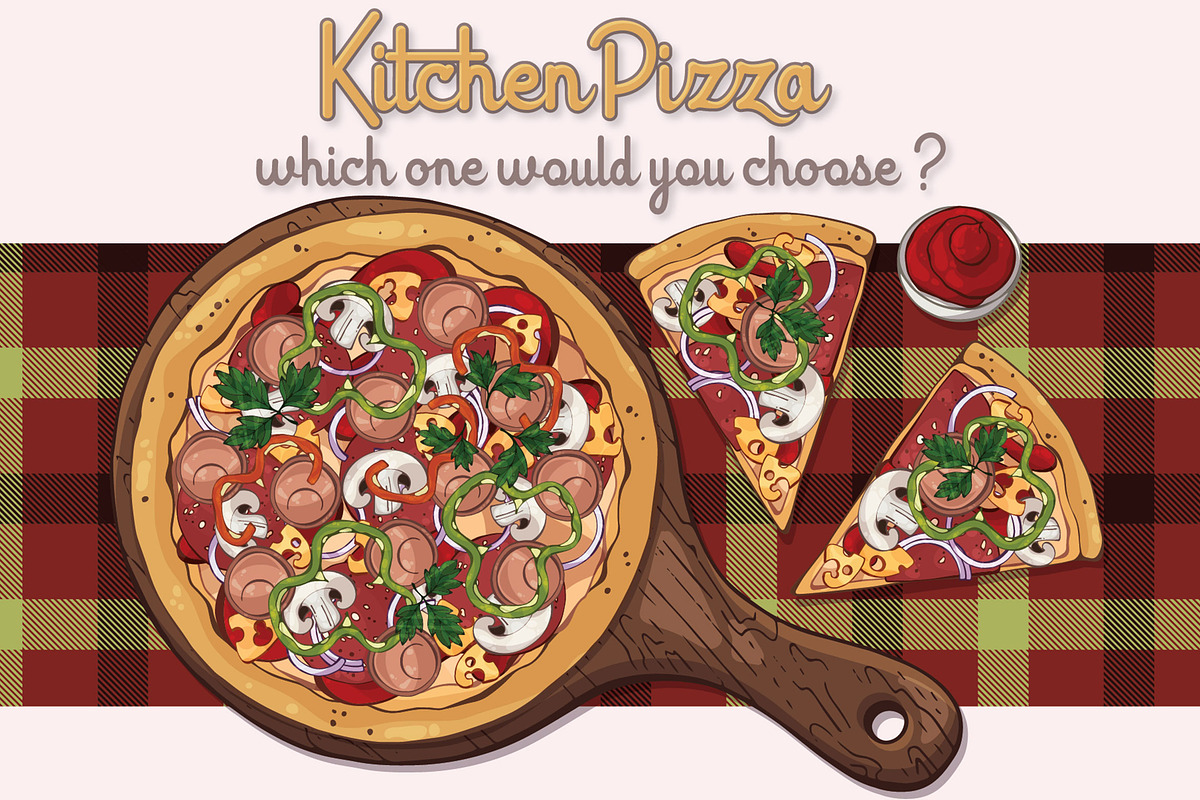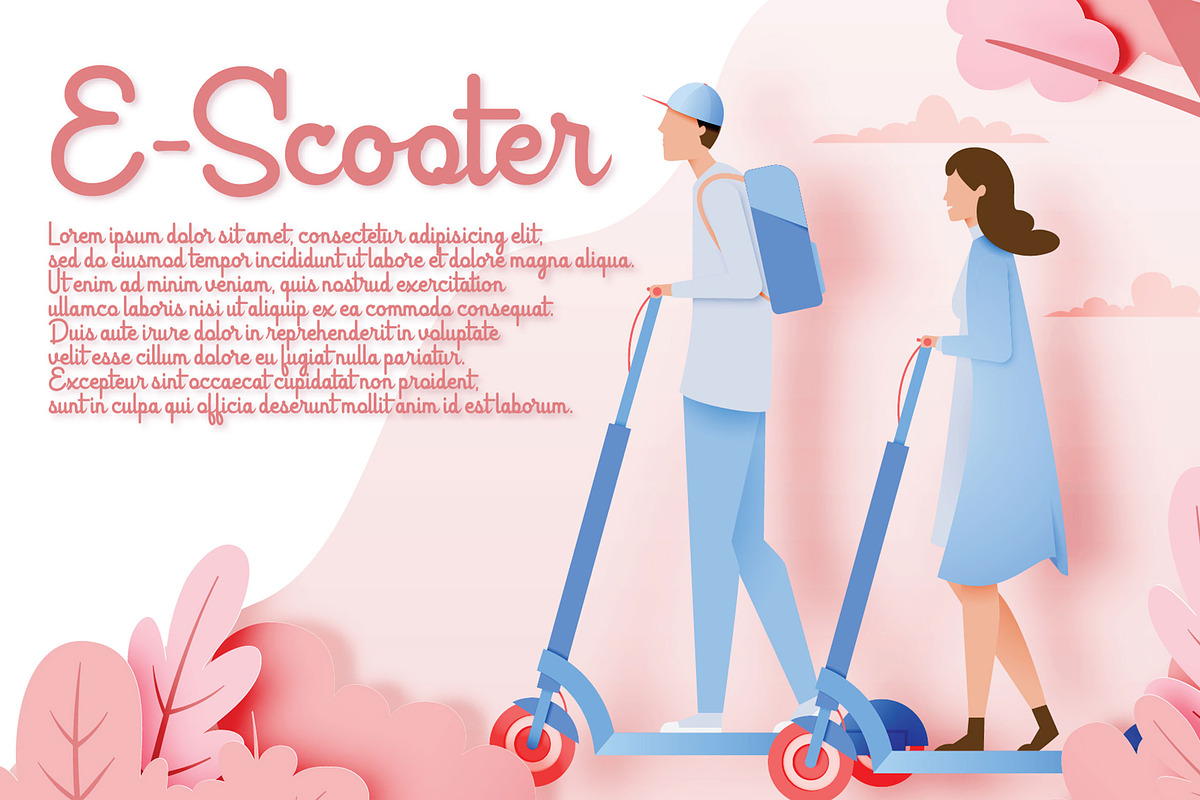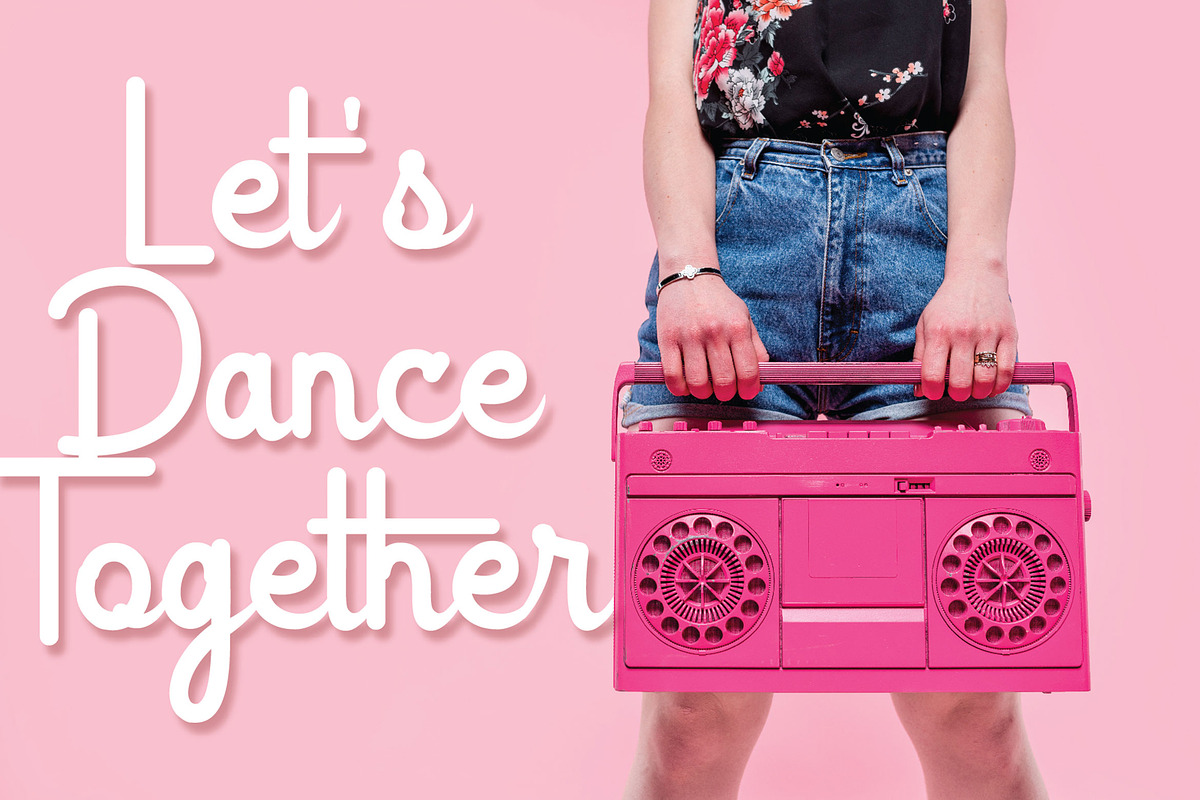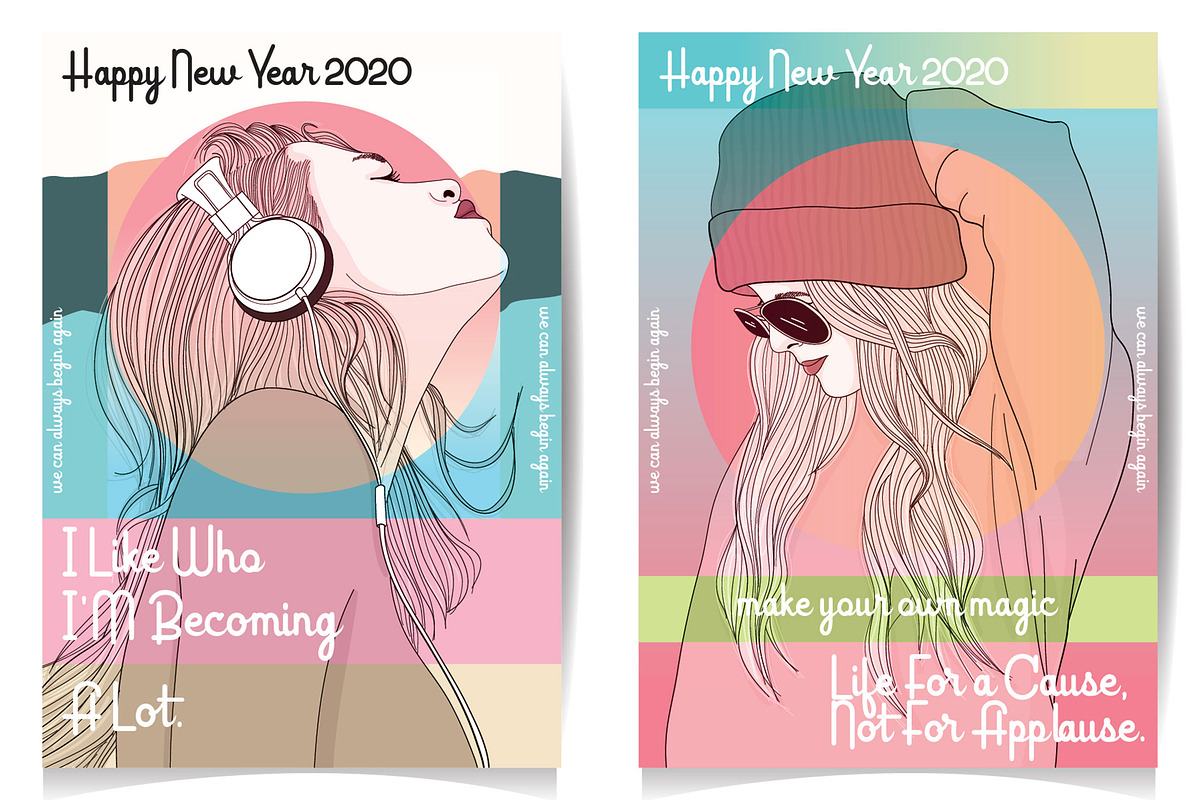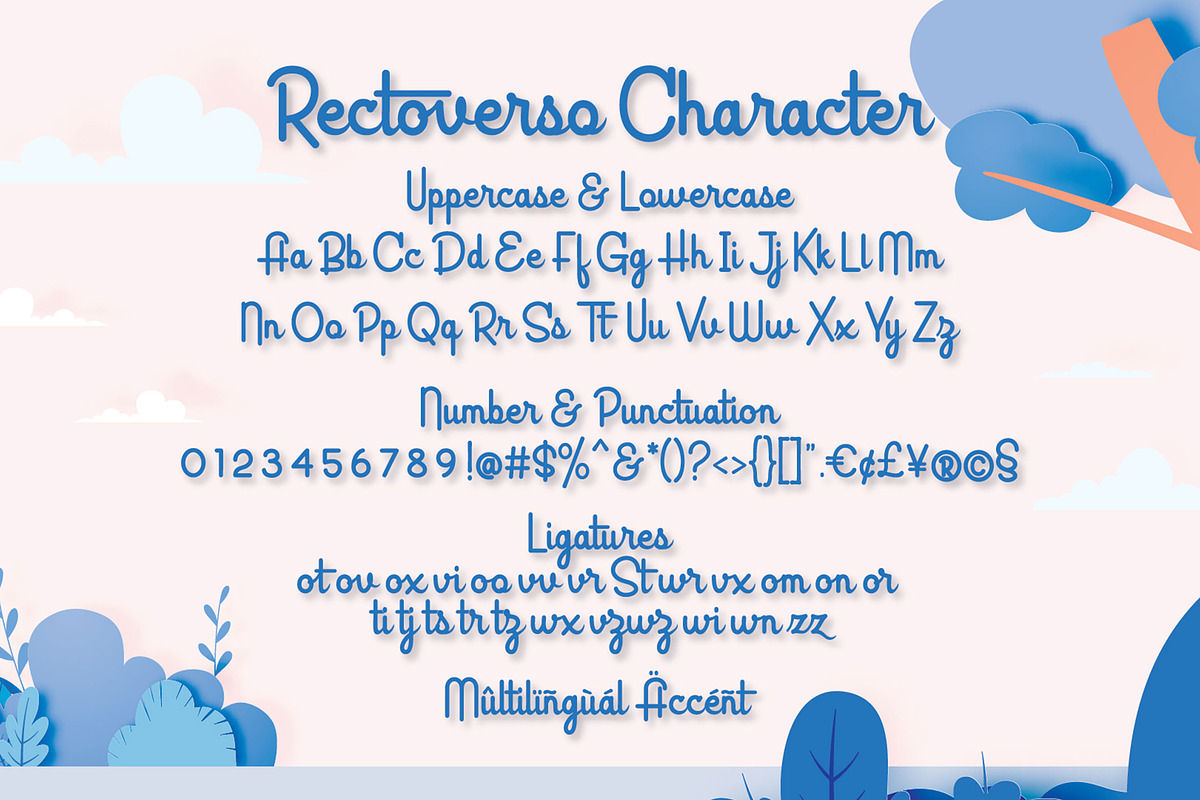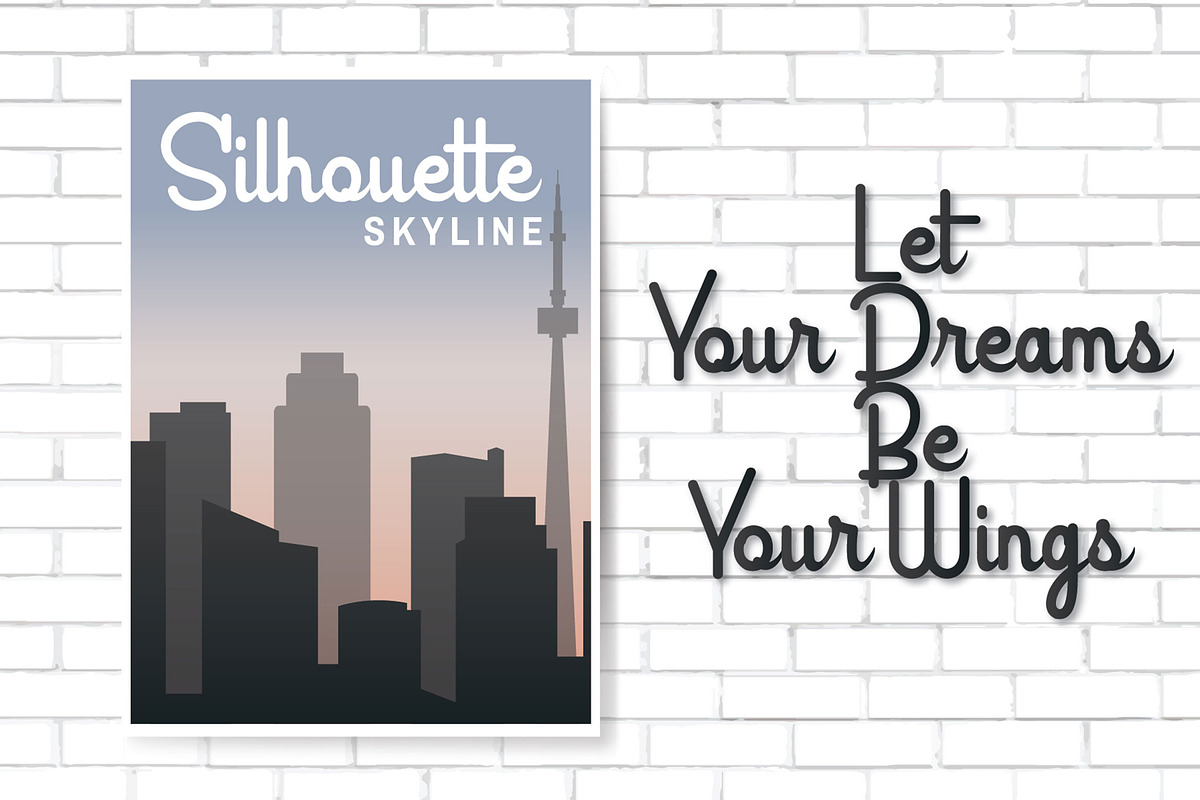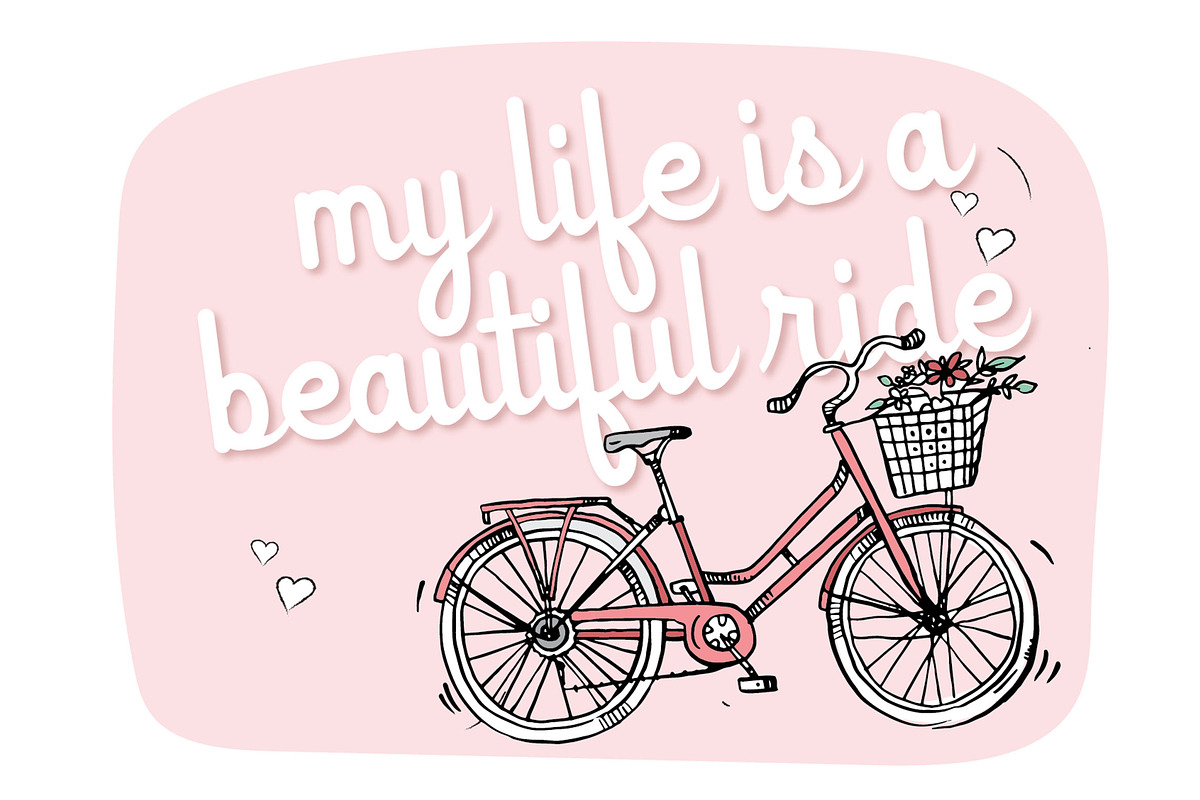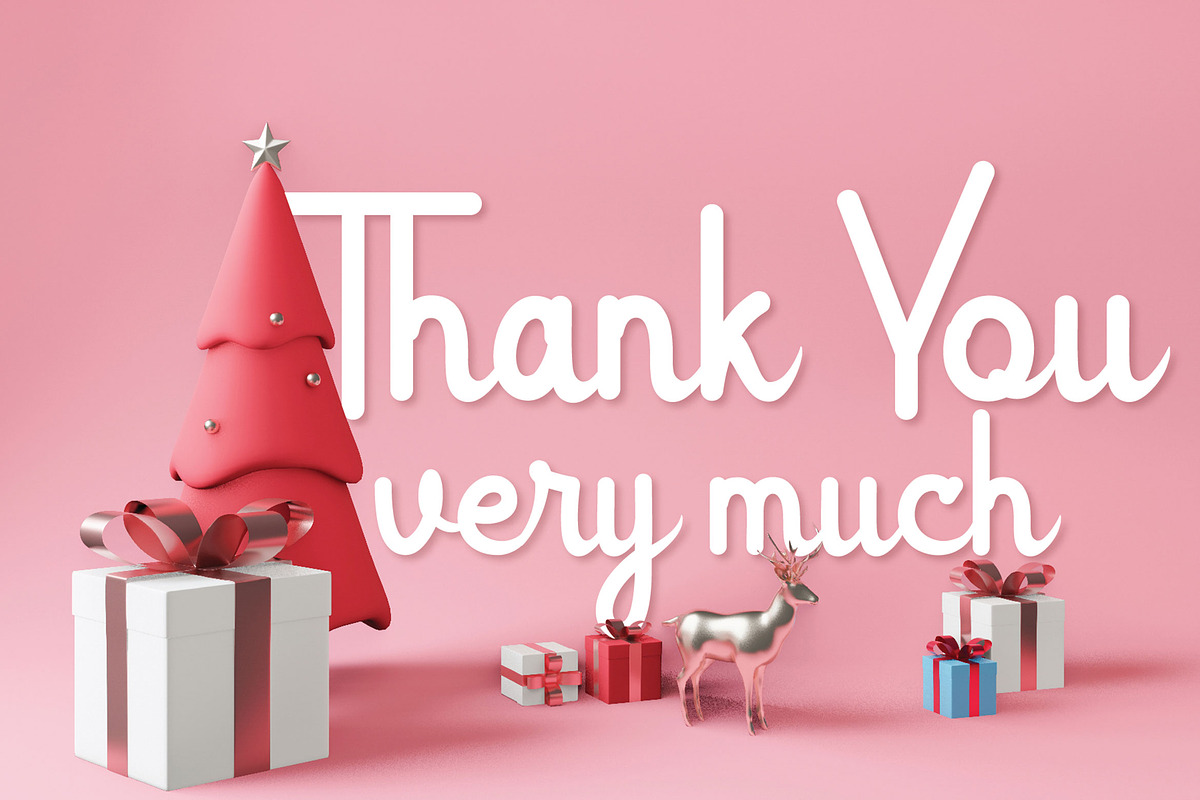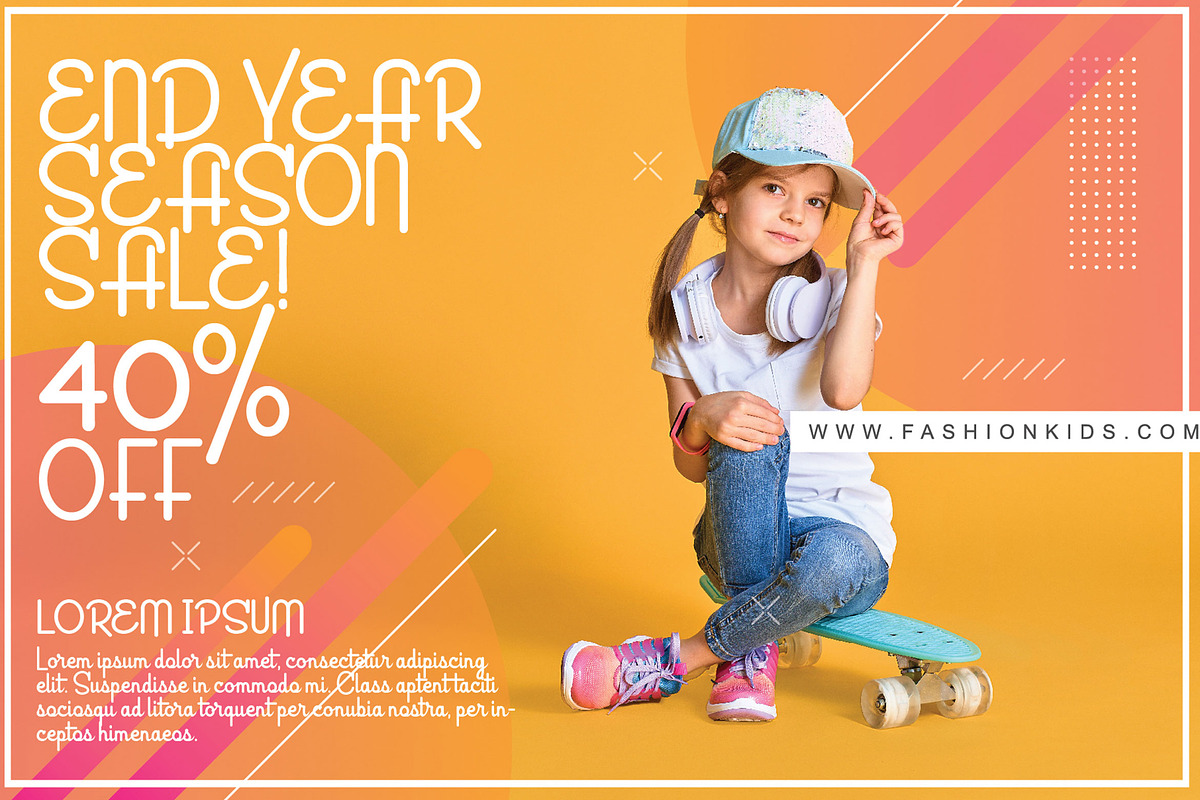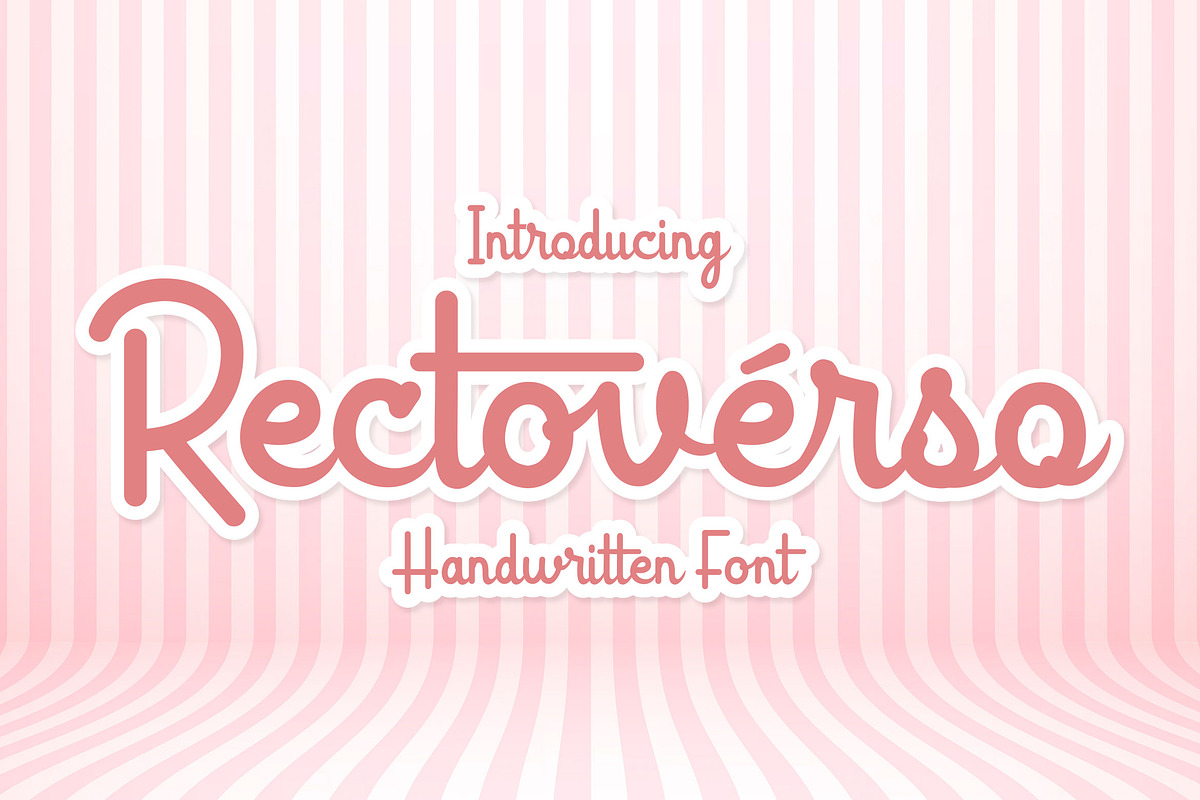
Rectoverso - Retro Script
Introducing of our new product the name is Rectoverso Script.Rectoverso Script is modern and playfull script but also suitable for retro fonts.
MULTILINGUAL ACCENT : ŽžŠŒšŸÀÁÂÃÄÅÆÇÈÉÊËÌÍÎÏÐÑÒÓÔÕÖØÙÚÛÜÝßàáâãäåæçèéêëìíîïñòóôõöøùúûüýÿ
FEATURES : Uppercase Lowercase Number Punctuation Multilingual PUA Encode Opentype Ligatures